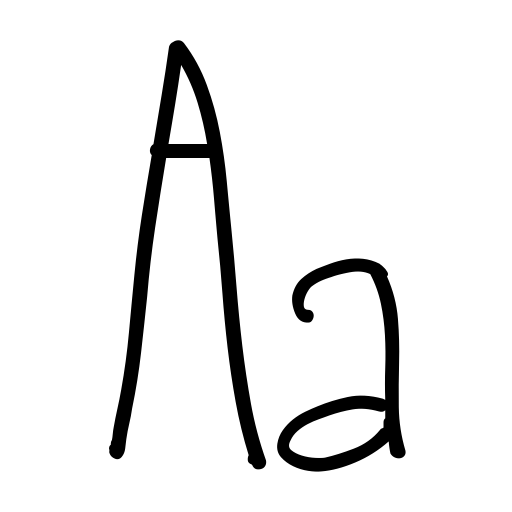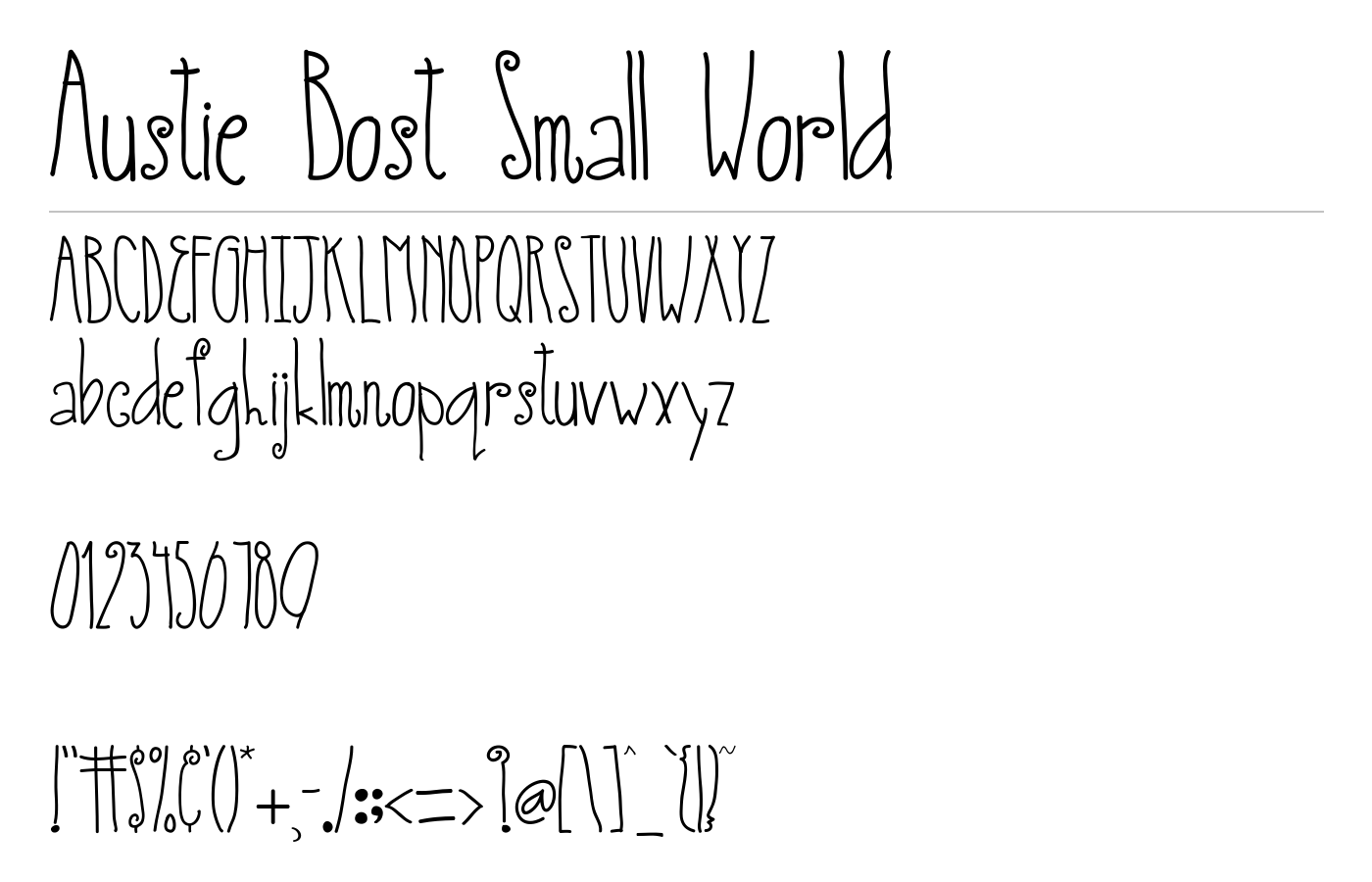
Austie Bost Small World is a whimsical, narrow handwritten font with a playful and quirky character. Its tall, thin letterforms feature unique curls and loops that add charm and personality, making it ideal for creative projects, casual branding, and fun editorial designs. This font works well where a friendly, approachable vibe is needed, especially in children’s books, invitations, or any setting that benefits from a lighthearted, informal style.
Austie Bost Small World Font
About Austie Bost Small World Font